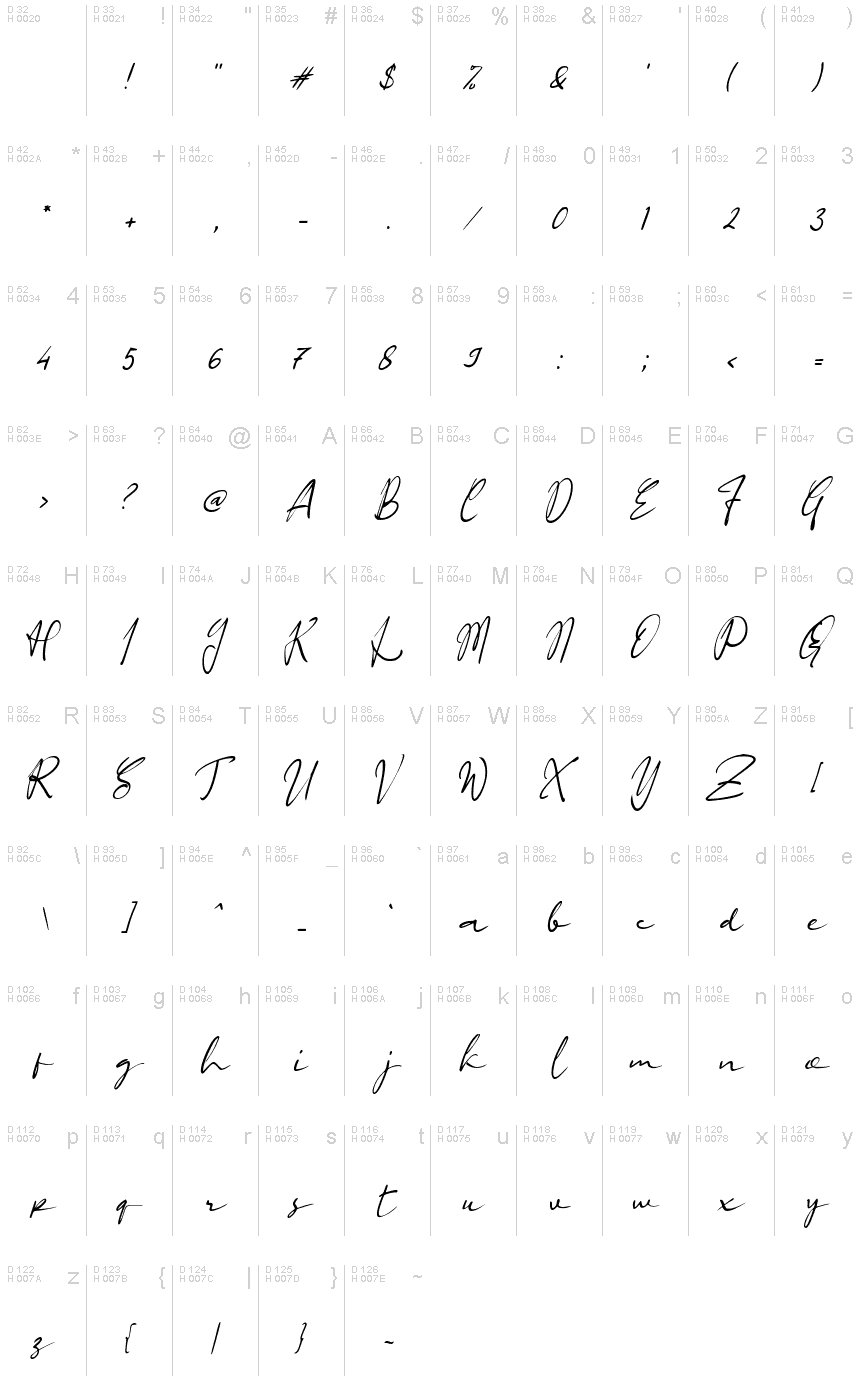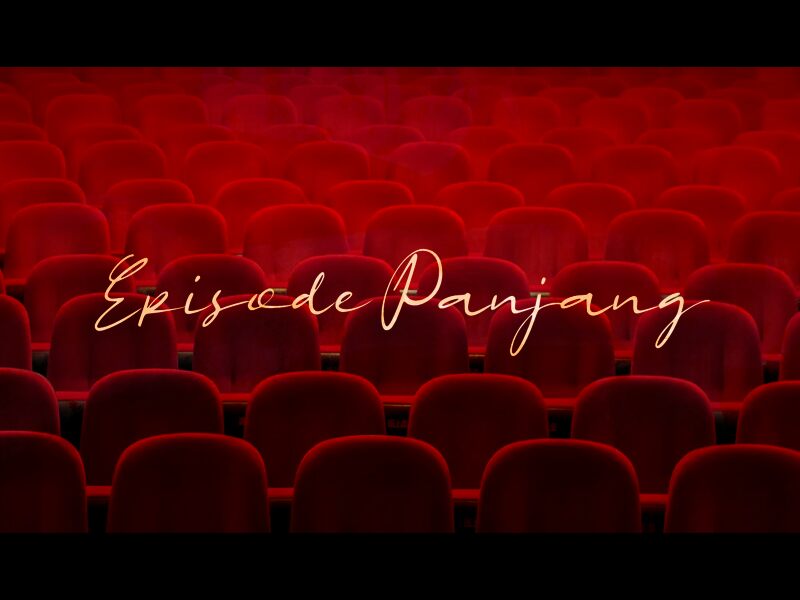
Episode Panjang
Episode Panjang is a charming handwritten font designed by wep that boasts a semi-light weight. This font is perfect for a wide range of projects, from wedding invitations to social media graphics and everything in between. Its playful, yet refined style makes it suitable for both personal and professional use. Whether you're looking to add a touch of whimsy to your branding or want to create an elegant greeting card, Episode Panjang has got you covered. So why not give this delightful typeface a try and take your designs to the next level?